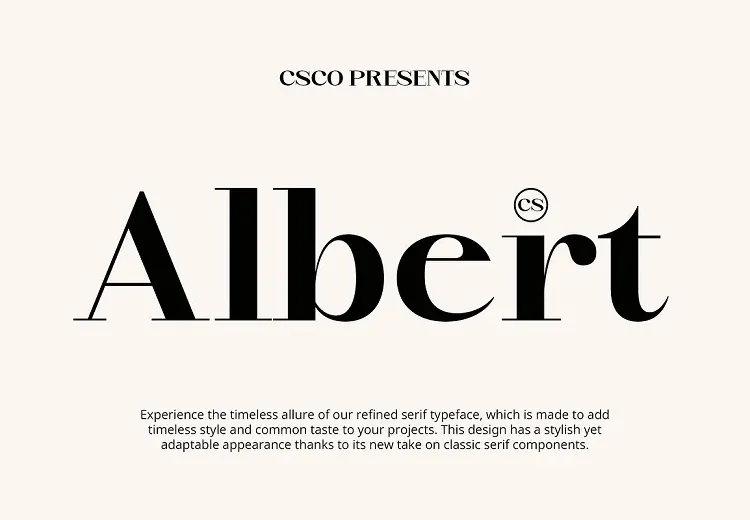
CS Albert Font
CS Albert is a sophisticated serif font embodying the Didone style, known for its pronounced differentiation of mass and width. This design choice imparts a rich, refined appearance, making CS Albert an ideal choice for high-end and formal applications.
The distinct contrast in line thickness adds a modern touch to the font, enhancing its classy and sophisticated look. This visual contrast makes CS Albert perfect for high-end products and formal designs where elegance and refinement are paramount.